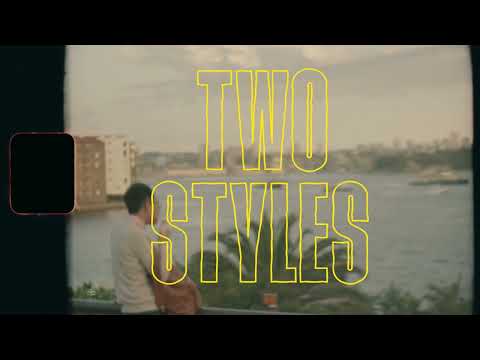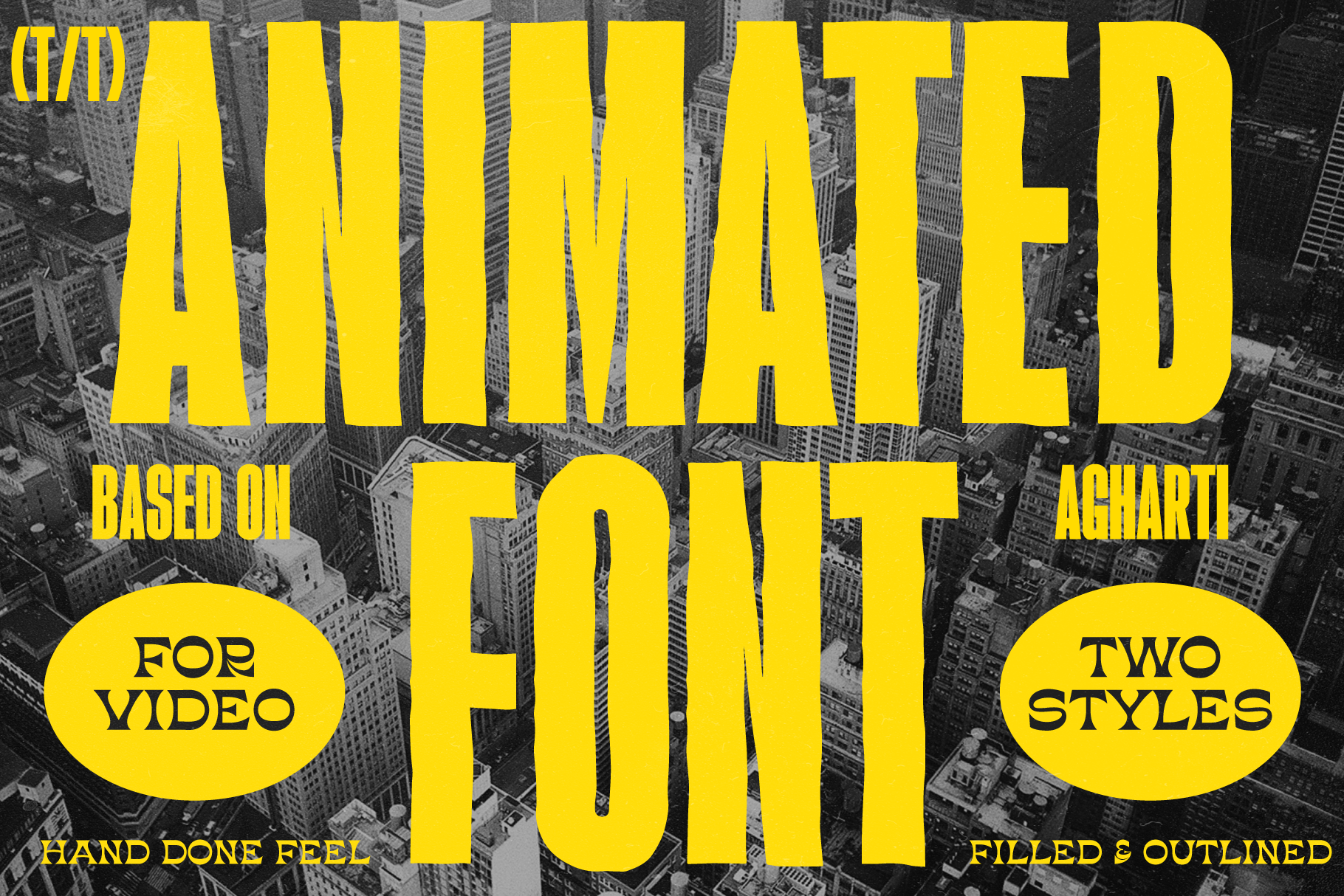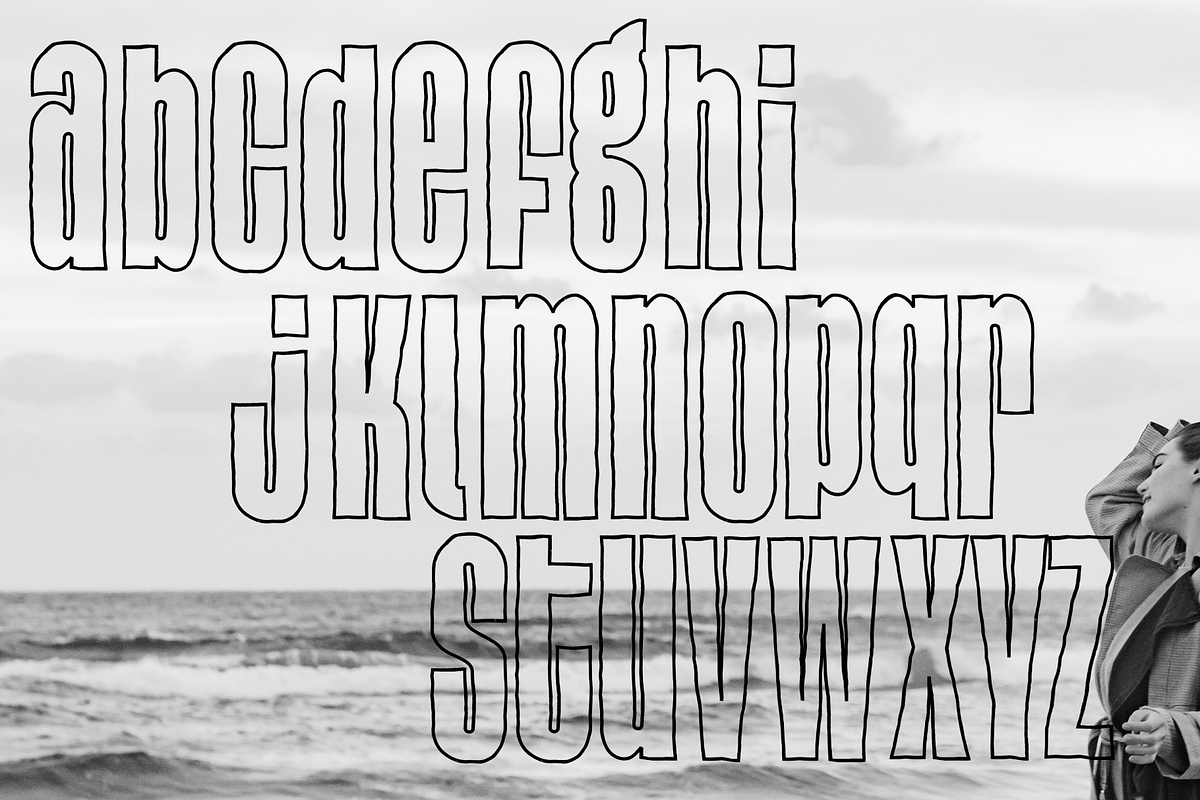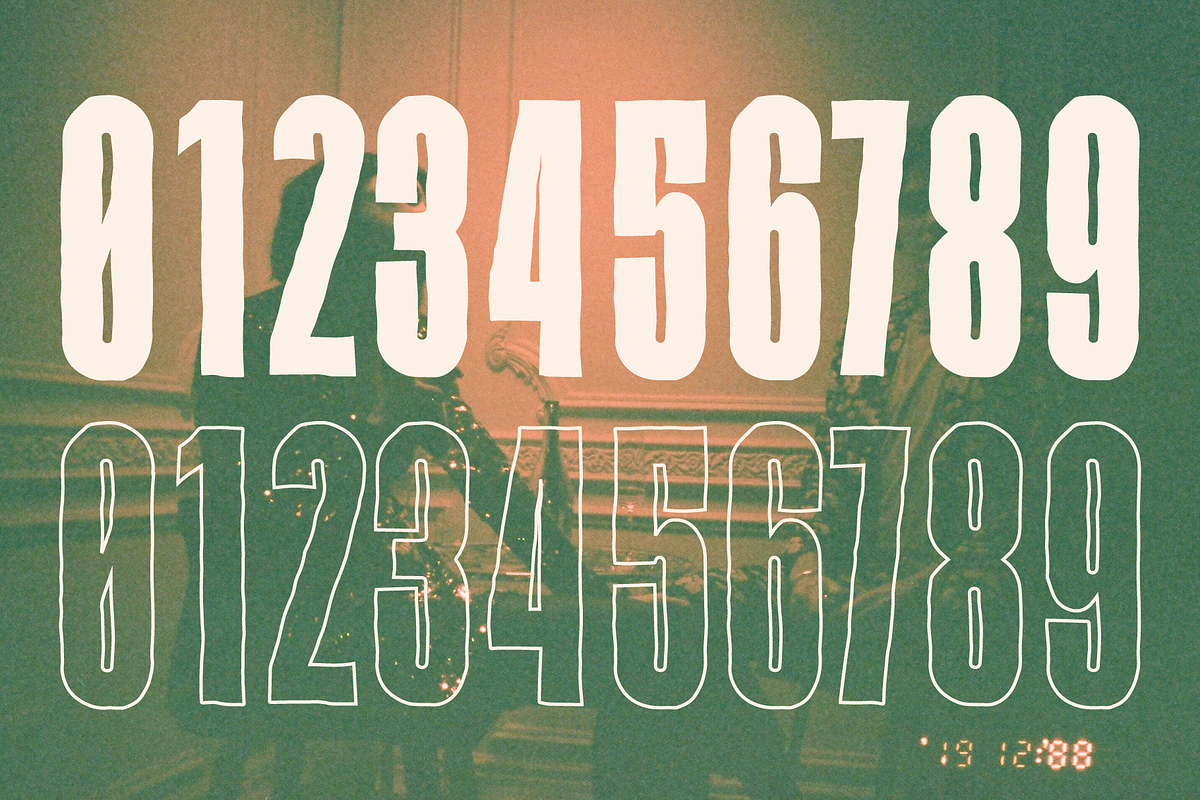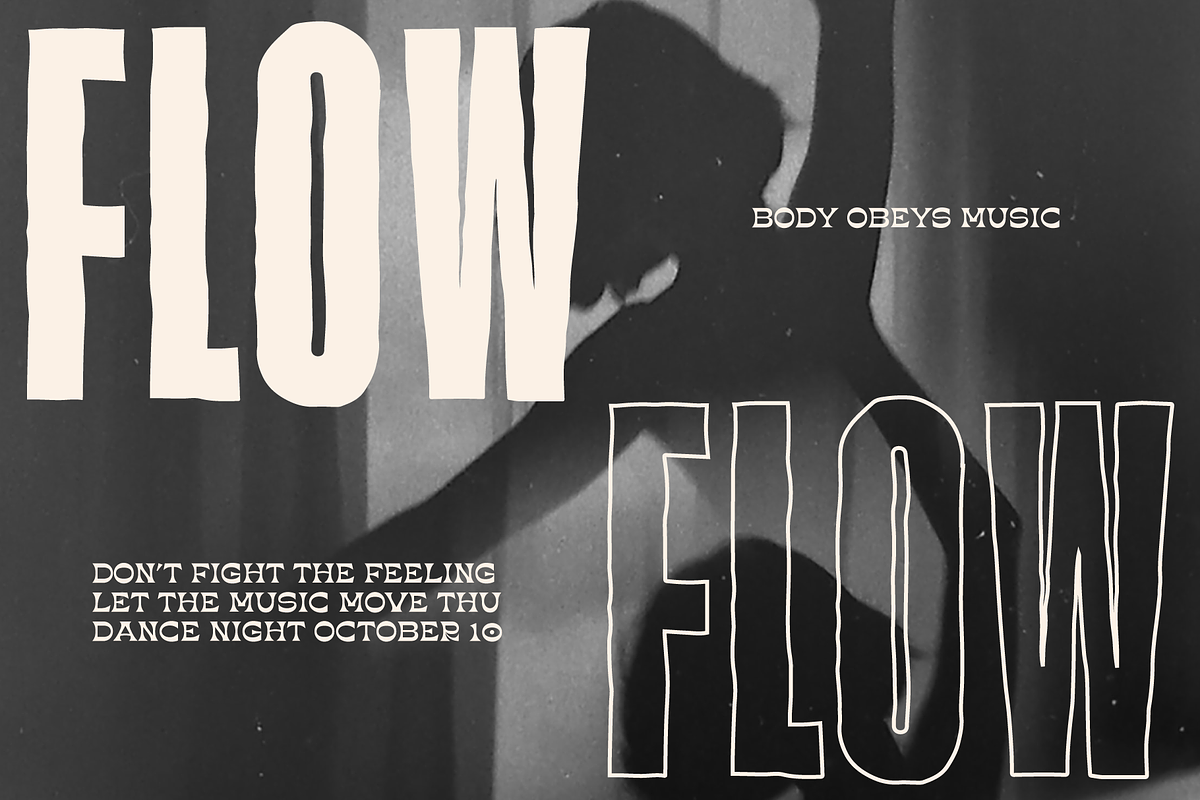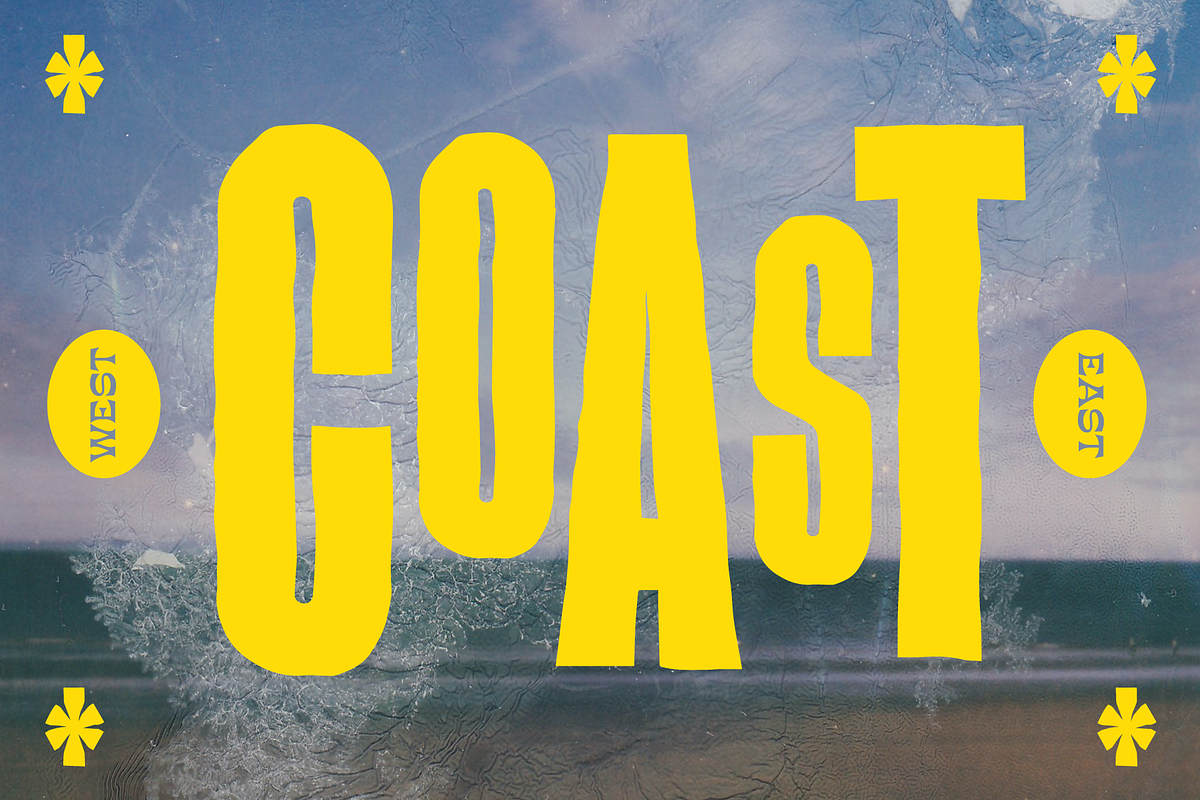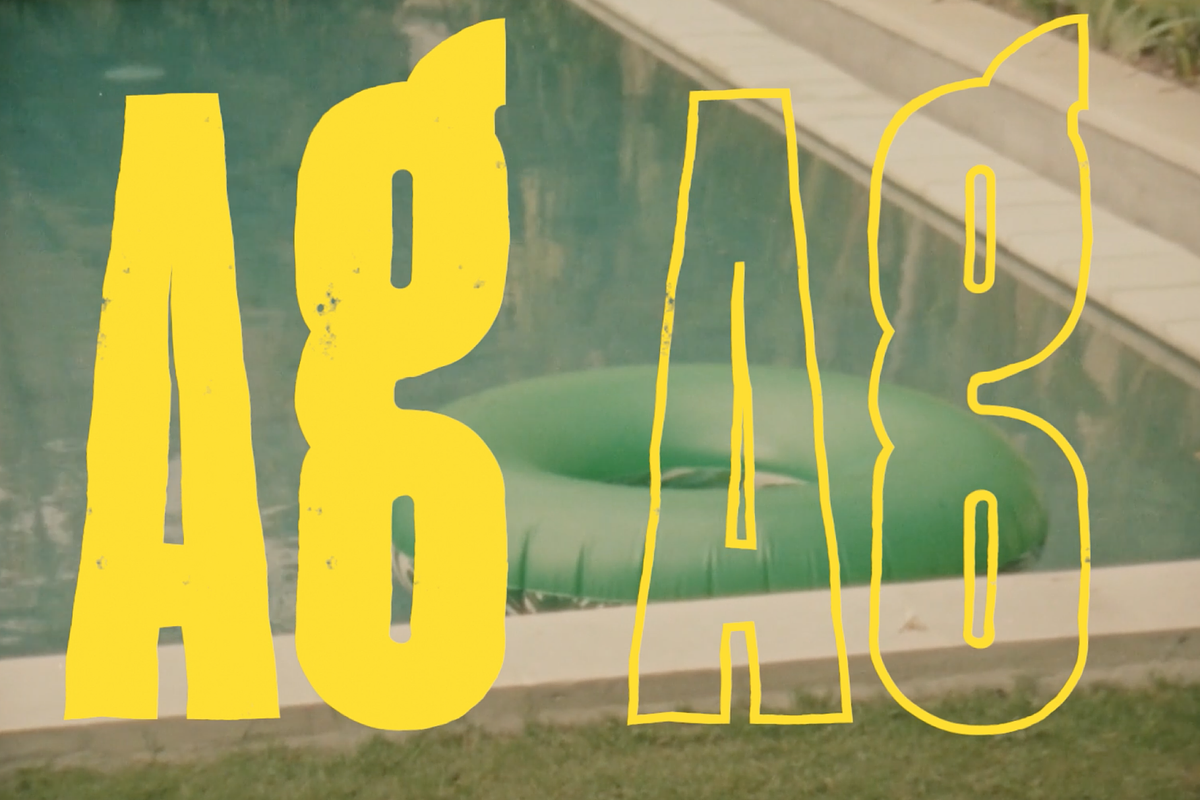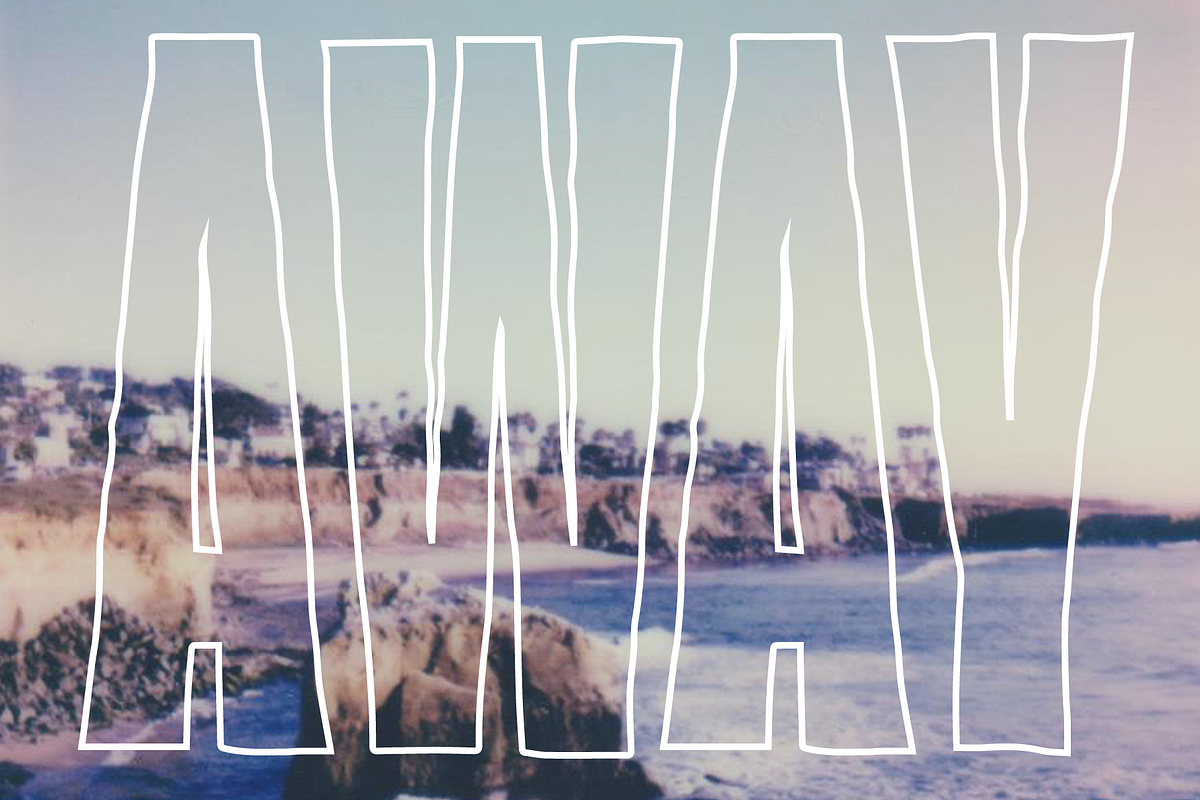
Animated Font Agharti
This animated font hits all the right notes of nostalgia retro vintage summertime vacation vibes. AND it comes in two styles. filled and outlined. It is based on the font Agharti and has been given some personality in its animation. It has a dust and scratches texture and frame-by-frame animated imperfections. This animated font works well for any video project from Instagram and TikTok to branding videos.
- 2 Styles filled & Outlined
- Caps
- Lowers